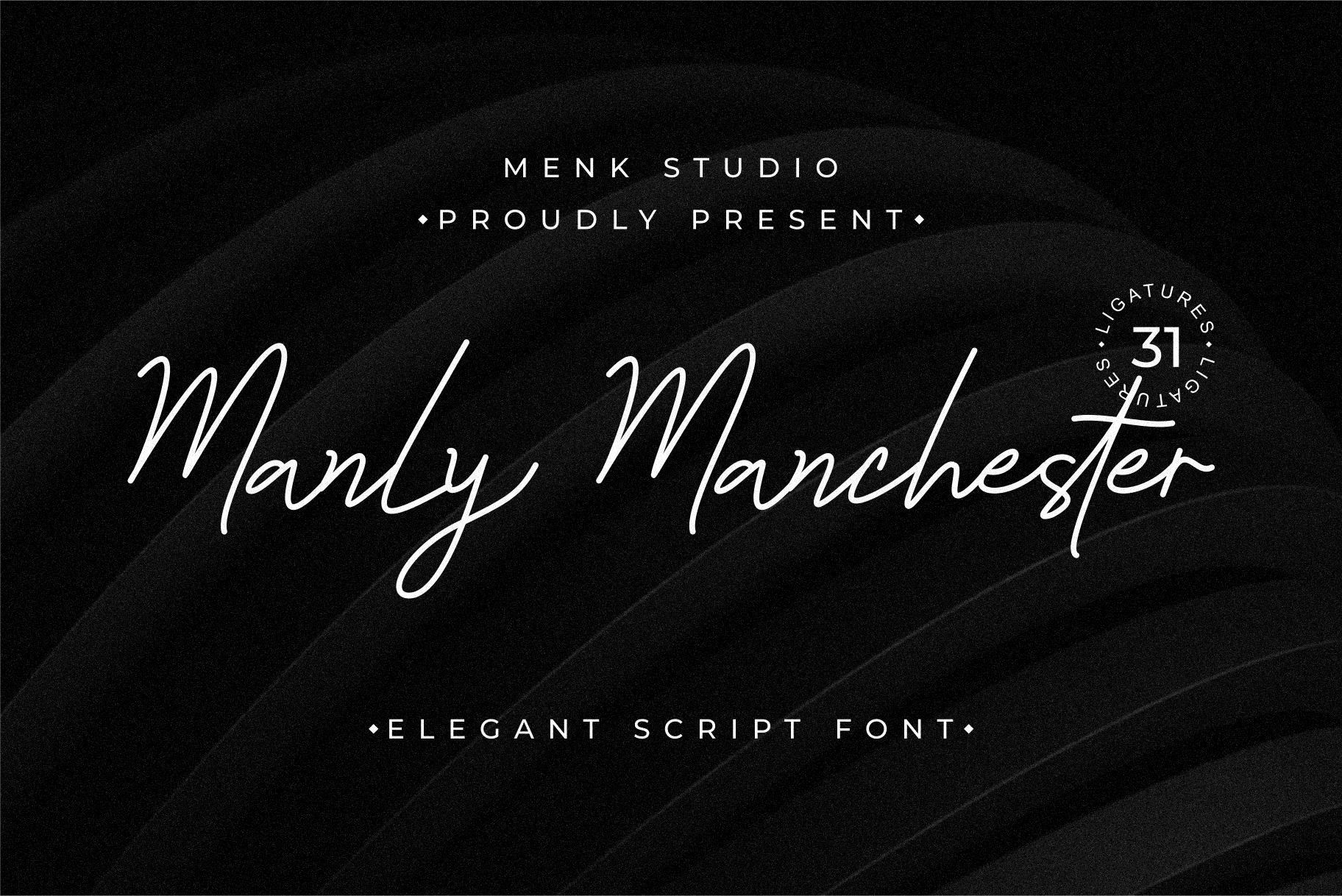
Manly Manchester - Font Script
Manly Mancheter is a elegant script with a handwriting style that has alluring looks. It will make every need looks perfect.
Manly Mancheter is perfect for branding projects, logo, wedding designs, social media posts, advertisements, product packaging, product designs, label, photography, watermark, invitation, stationery and any projects that need handwriting taste.